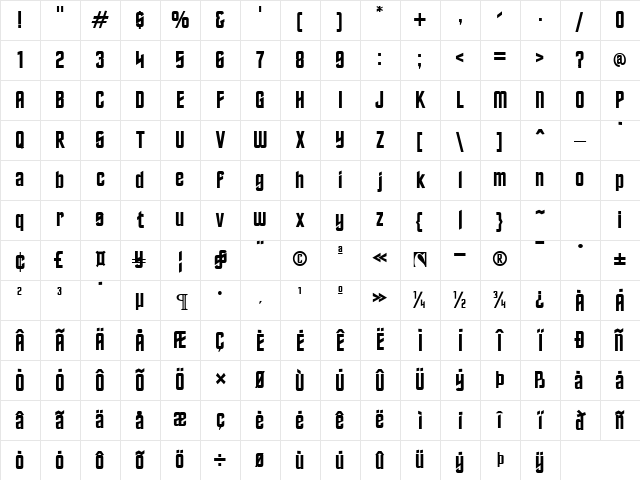
Trekkies Regular
Complete Trekkies Regular glyph index. Displaying only characters natively supported by Trekkies Regular font.
Design Context for Trekkies
Trekkies is a composed and adaptable typeface that performs quietly and consistently across a wide range of design contexts.